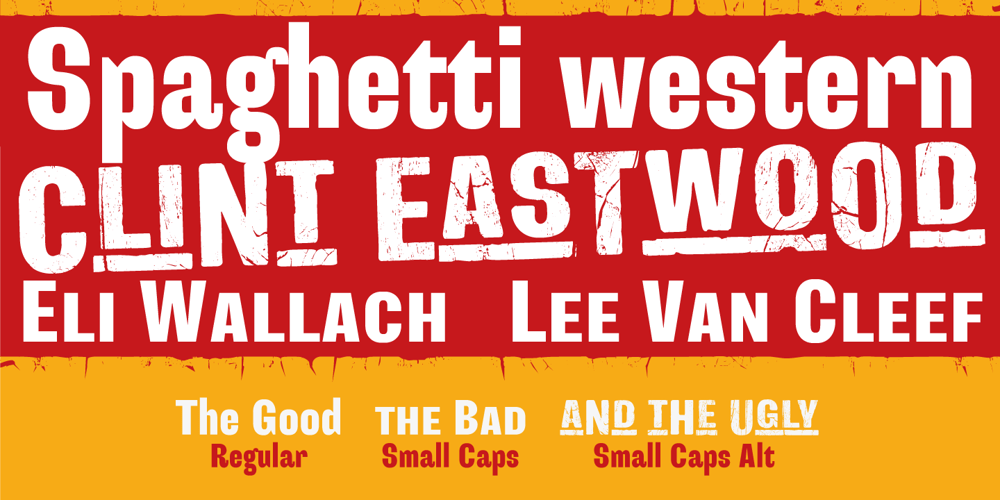
GoodBadUgly Font Family was designed by Cyrill Tkachev and published by Tkachev. GoodBadUgly contains 3 styles and family package options. GoodBadUgly is a new sans serif type with a Wild West flair. This font family will be the best solution for posters, signage, magazine, product branding, corporate branding, logos and titles.